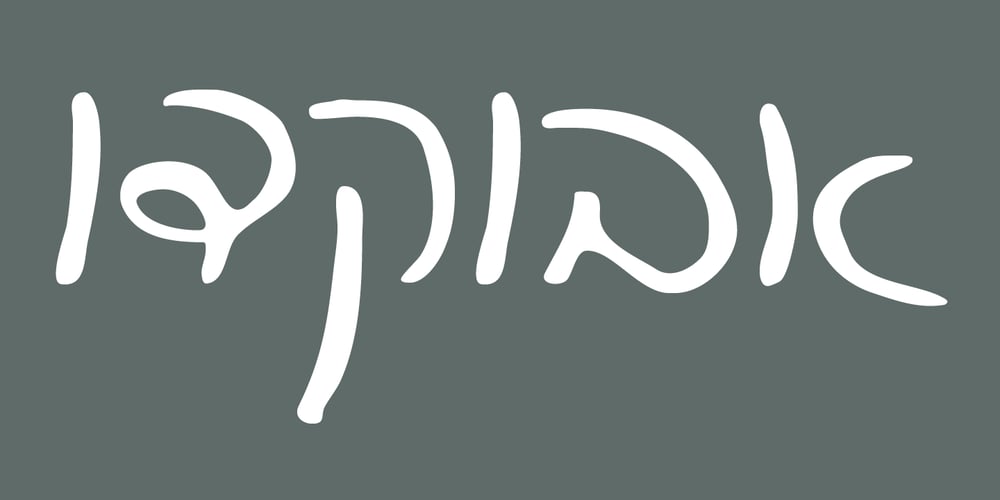
Kabuk MF Font Family was designed by Aviv Musan and published by Masterfont. Kabuk MF contains 1 styles and family package options. This is a wild and vivid choice when you want to effortlessly make your designs stand out with a remarkable clearly crafted handwriting.